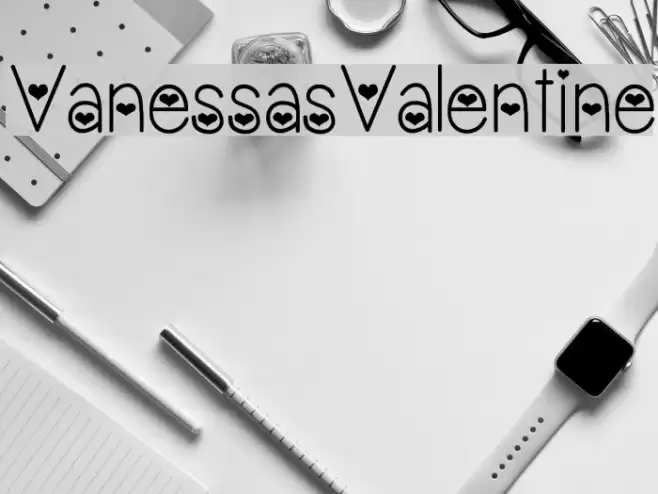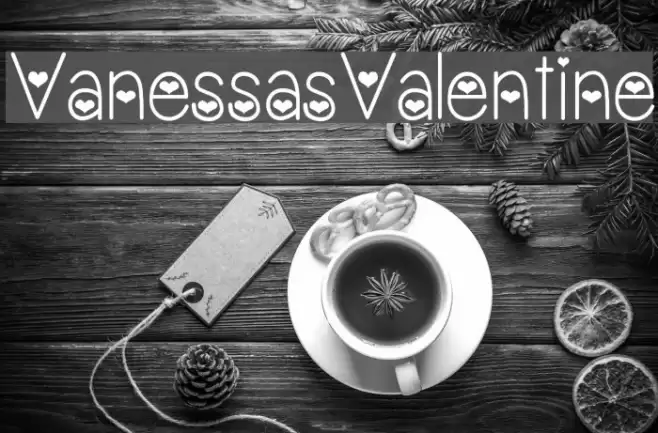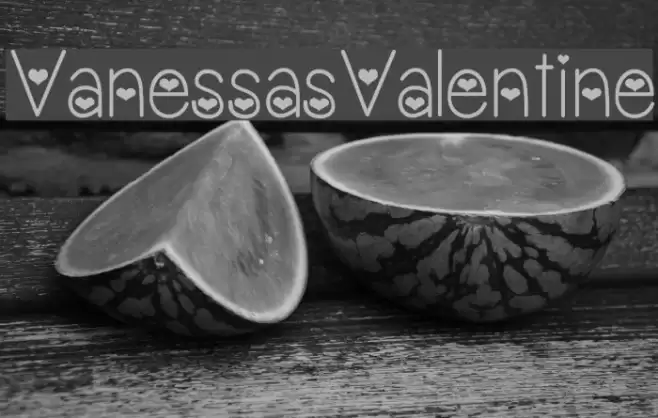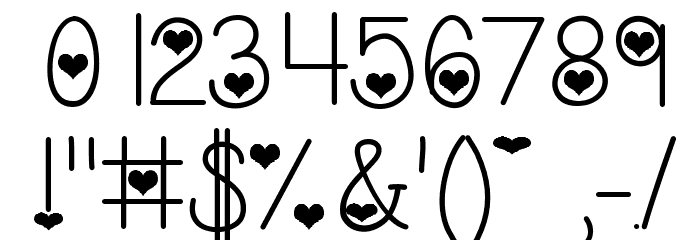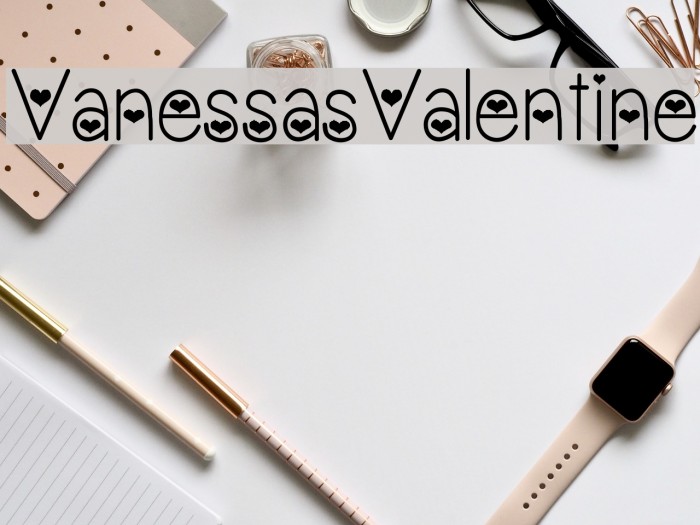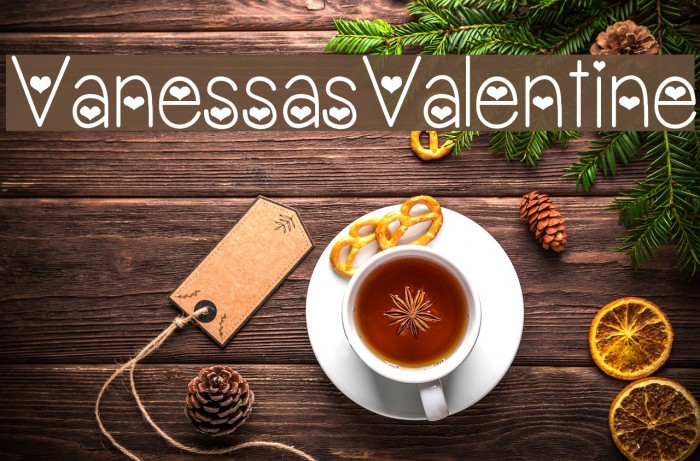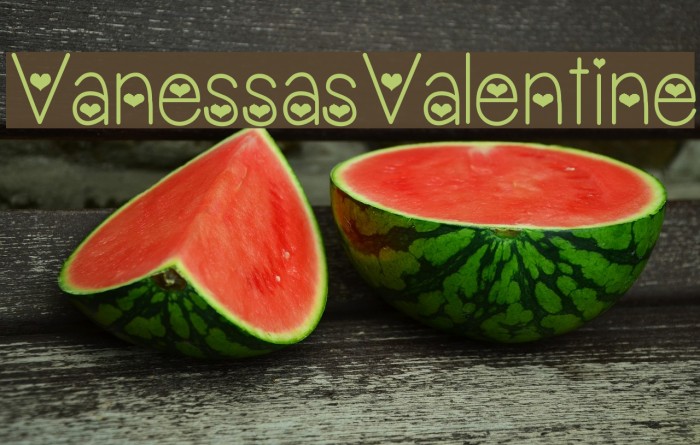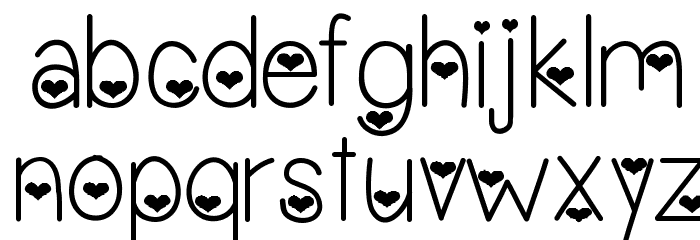
VanessasValentine Font
VanessasValentine Description
This playful and romantic font features heart motifs embedded within each character, adding a whimsical and affectionate touch. The letters are rounded and smooth, with a consistent stroke width that maintains readability while incorporating decorative elements. The heart shapes are cleverly integrated, appearing in the center of the letters, which makes the font ideal for themes related to love and celebration. The overall design is clean and modern, yet it retains a charming and endearing quality that makes it stand out.
A playful font with heart motifs embedded in each character, perfect for romantic themes from Uncategorized fonts.
- Proposed Projects: Ideal for Valentine's Day cards, wedding invitations, love-themed posters, and playful branding projects.
- Overall Style: Playful, Romantic
- Use Case: Headlines, Logos, Invitations